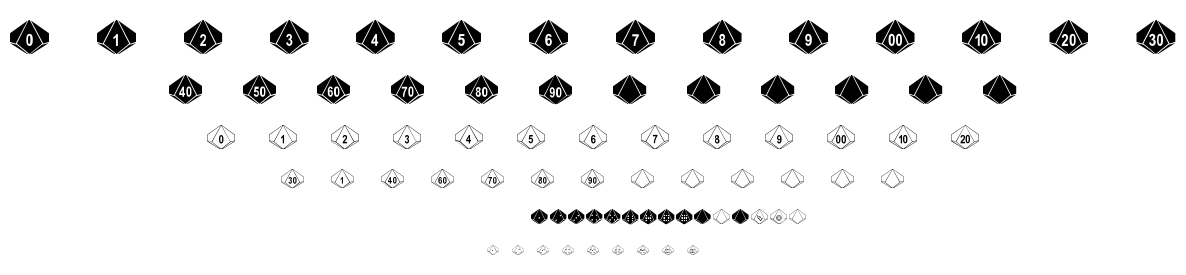
A ‘game dings’ font focusing on the D10. Includes ‘solid’ and ‘hollow’ versions, pips, tens’ digit versions, and an assortment of unusual dice glyphs.